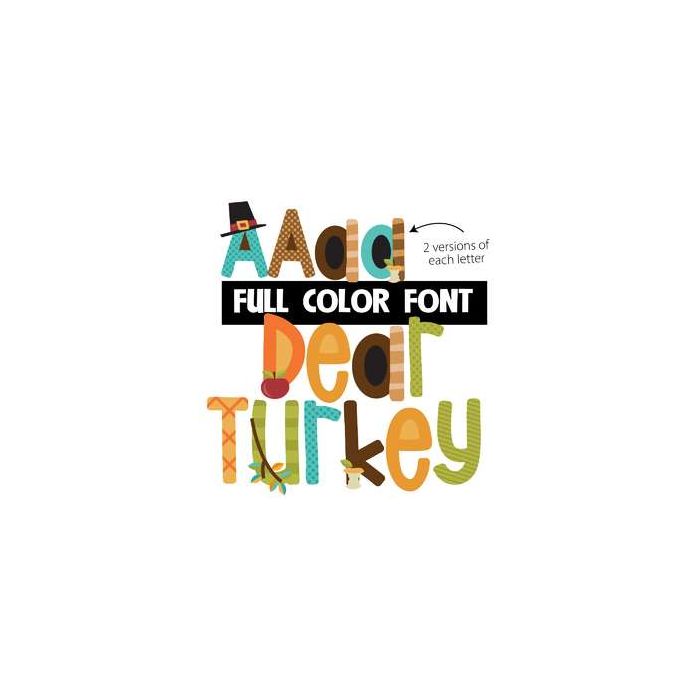
This full-color font features Thanksgiving elements with colorful lettering. There is an upper and lowercase alt version you can access through your system's character map. This font works best for titles, displays, posters and more. Please note color fonts will show as black in non compatible programs. This font type is compatible with Silhouette Studio.